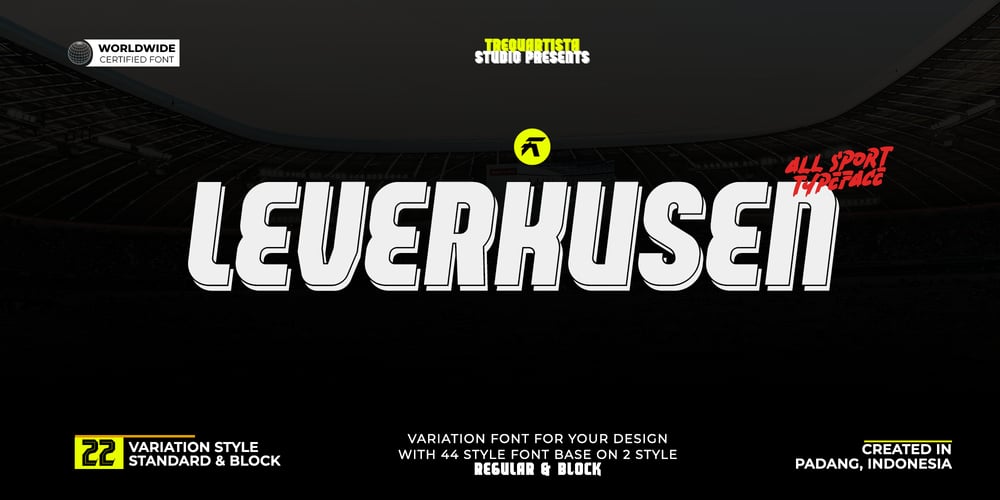
Leverkusen
Leverkusen font
Leverkusen Font Family was designed by Muhammad Afif Ersya and published by Trequartista Studio. Leverkusen contains 22 styles and family package options. Leverkusen has 11 Styles with matching sans serif and Obelique Styles. This typeface has a clean and athletic look, glyphs, and extensive Latin script support. Leverkusen Jersey & Sport Font is an elegant sans serif and has many competitive styles for your designs, therefore it is excellent for use on jerseys, headers, logos, texts, and posters, especially for the sports brand industry, but also great for other projects.